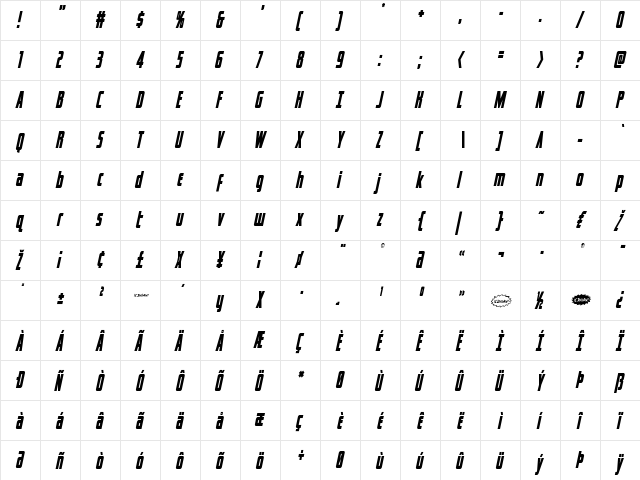
Captain Canaveral Condens Ital Condensed Italic Font Preview
Design Context for Captain Canaveral Condens Ital Typeface
Captain Canaveral Condens Ital takes a measured approach to typography — its balanced proportions and neutral character make it a reliable workhorse for both digital and print work. The dynamic lean of this cut emphasises speed and emphasis in any layout. The condensed width makes it efficient for tight spaces without sacrificing legibility.
Pro Tip: Use Captain Canaveral Condens Ital for emphasis, pull quotes, and subheadings where its slanted energy can add rhythm to the layout.